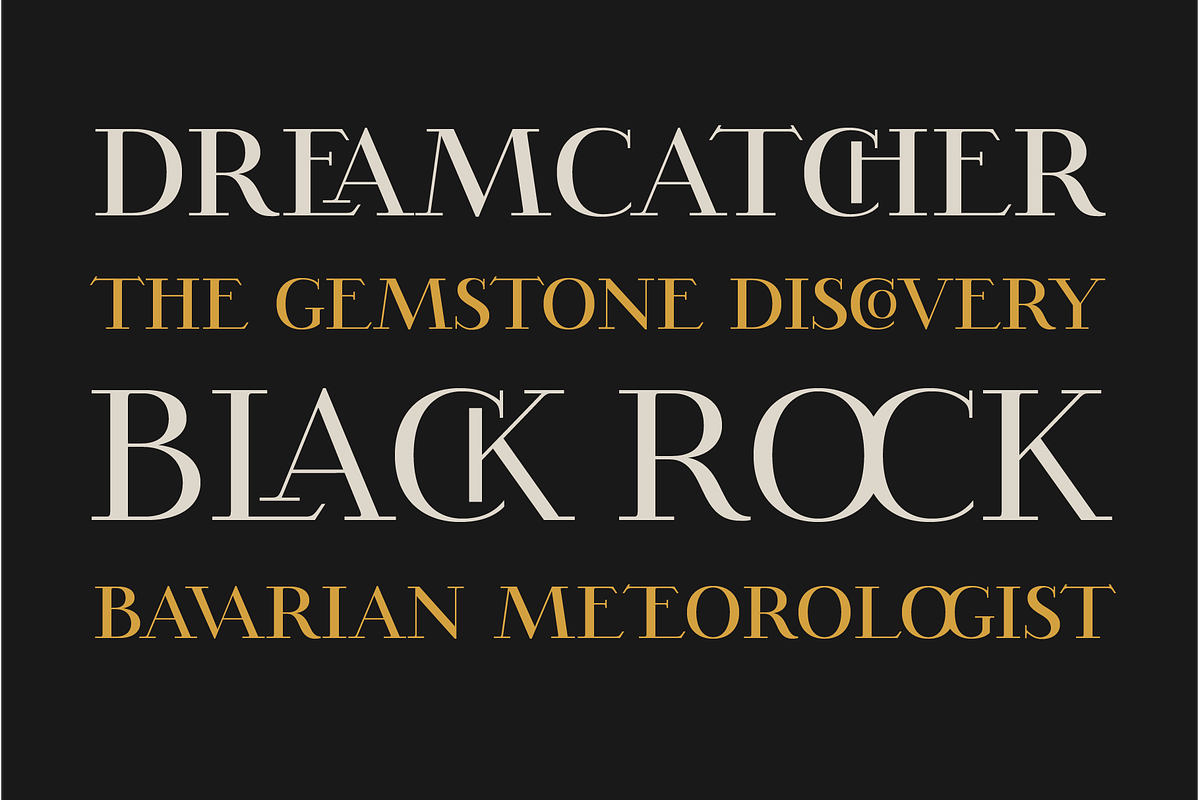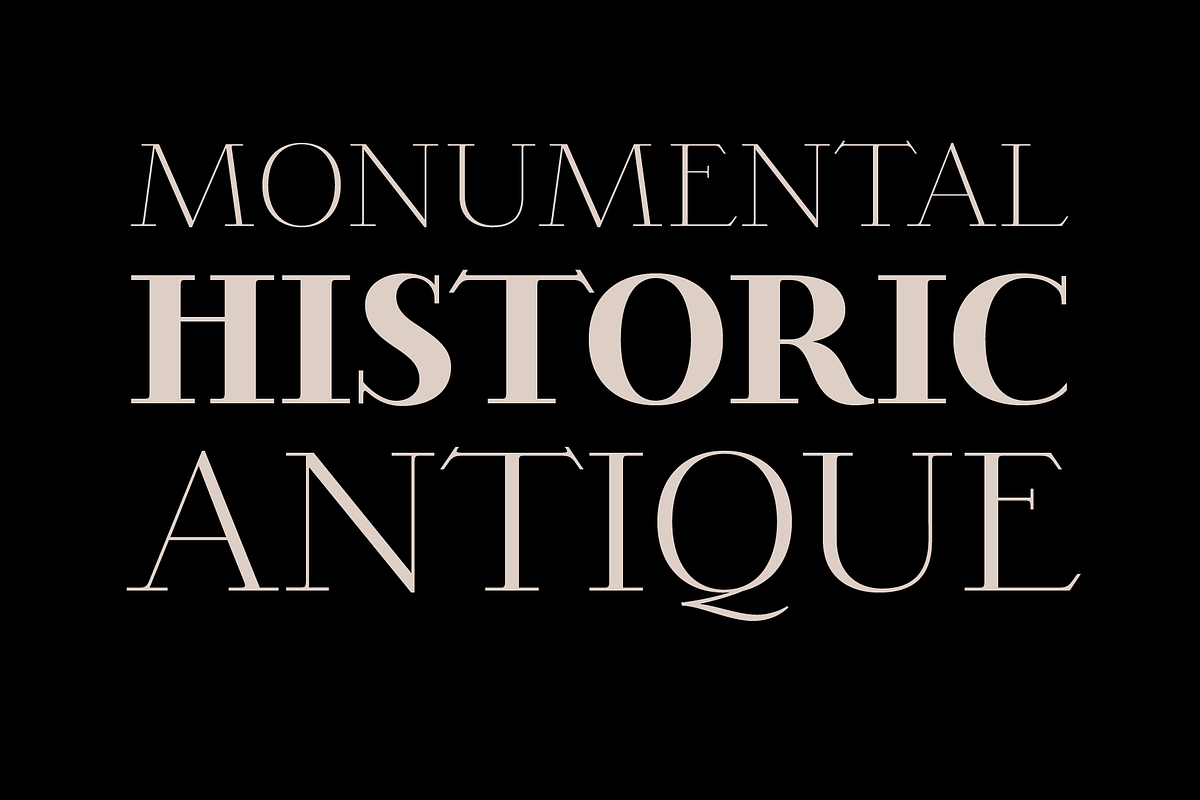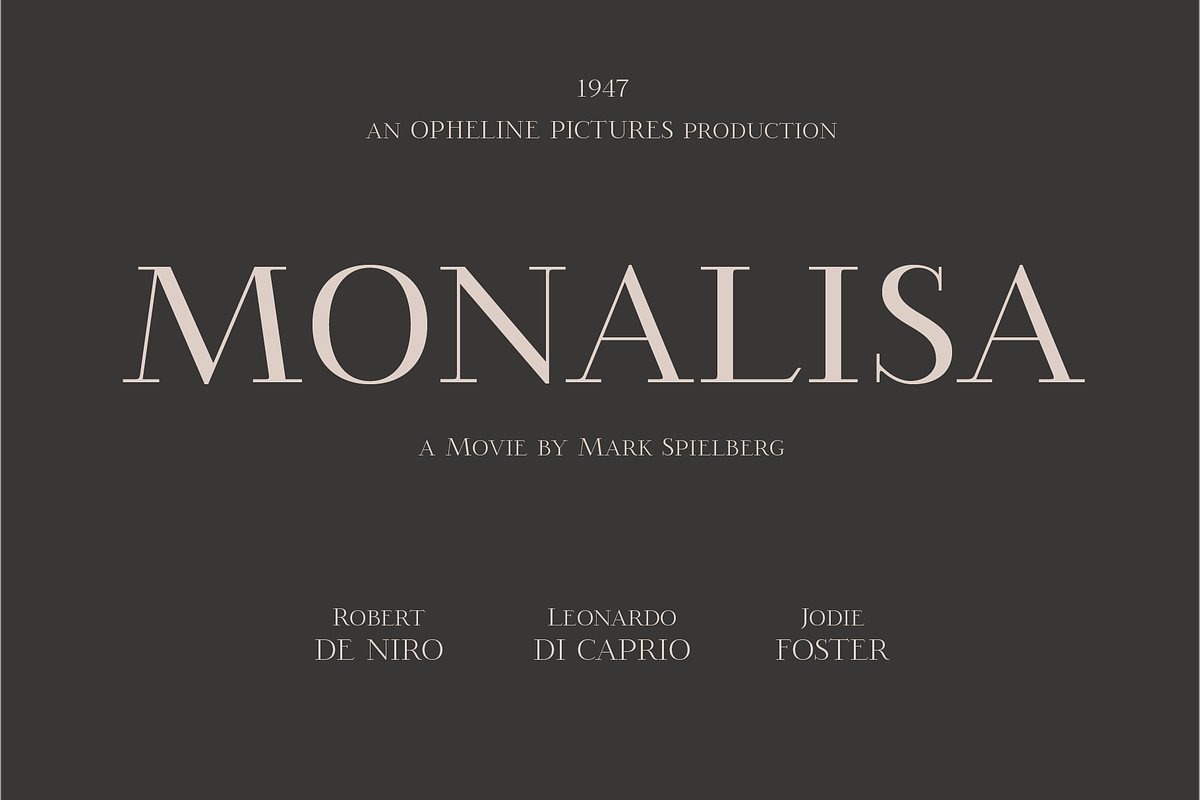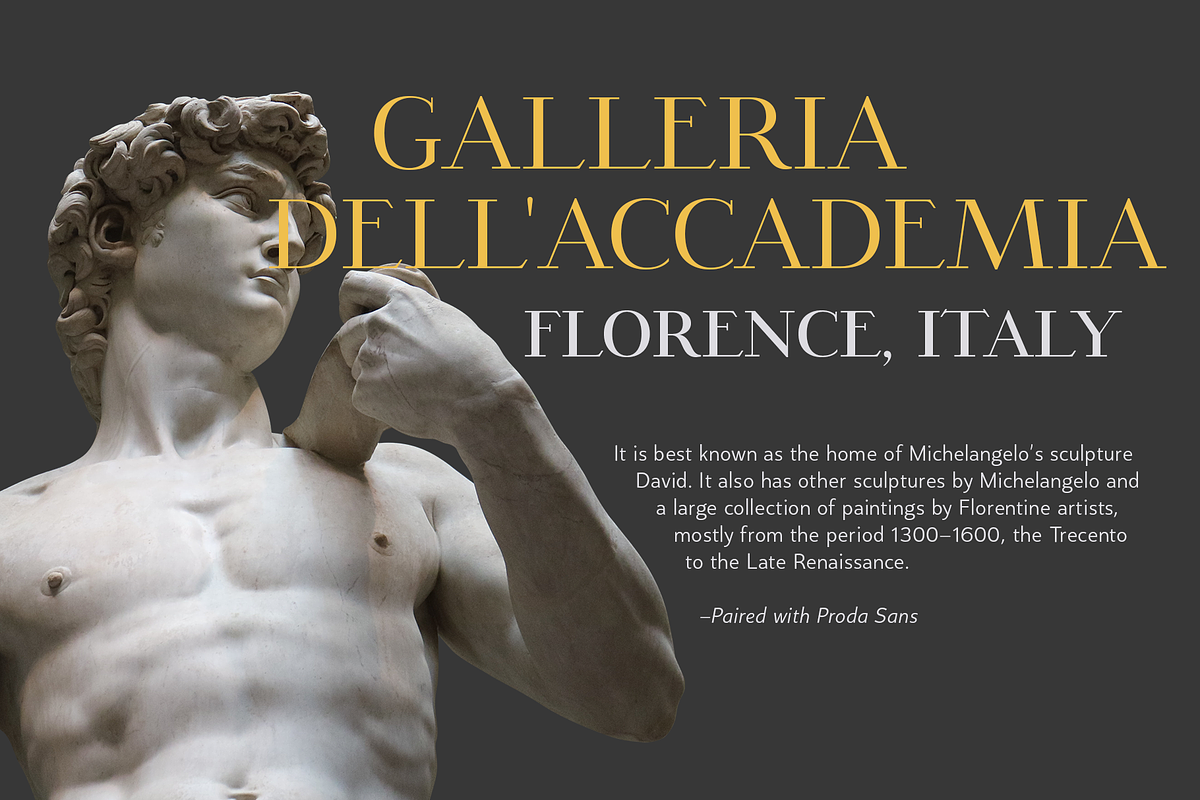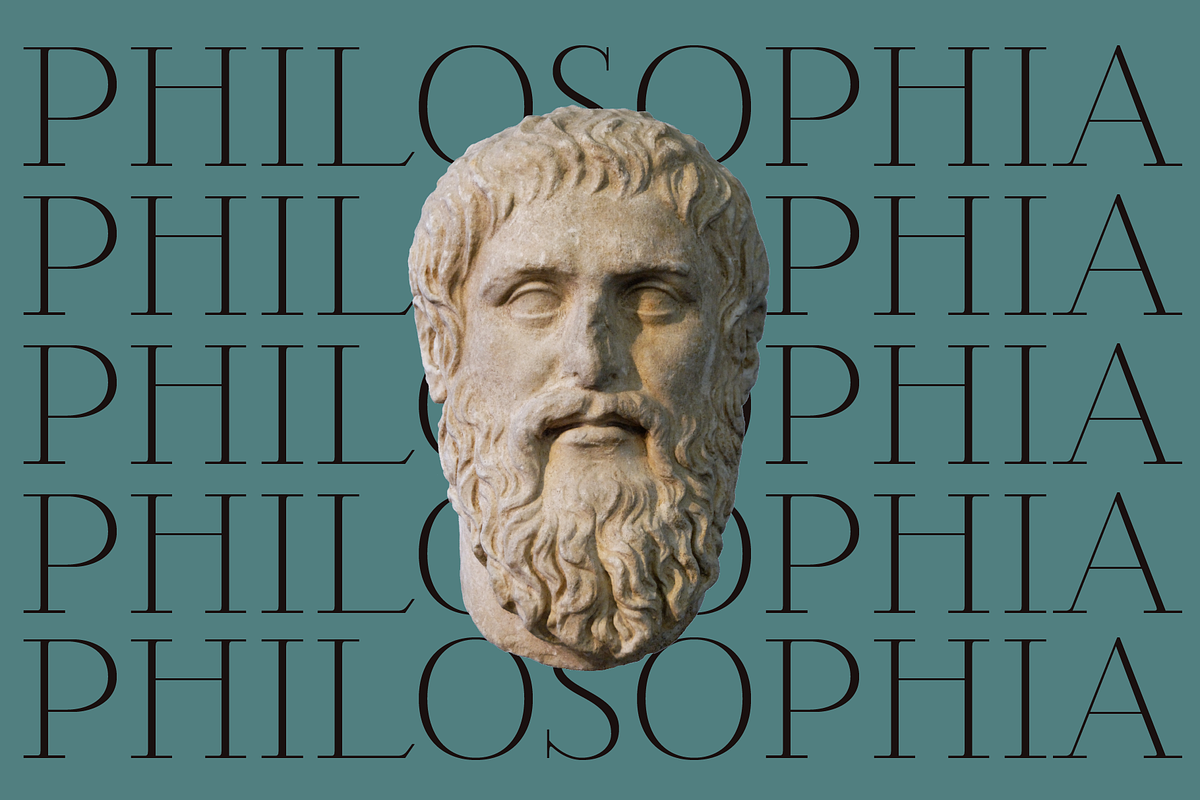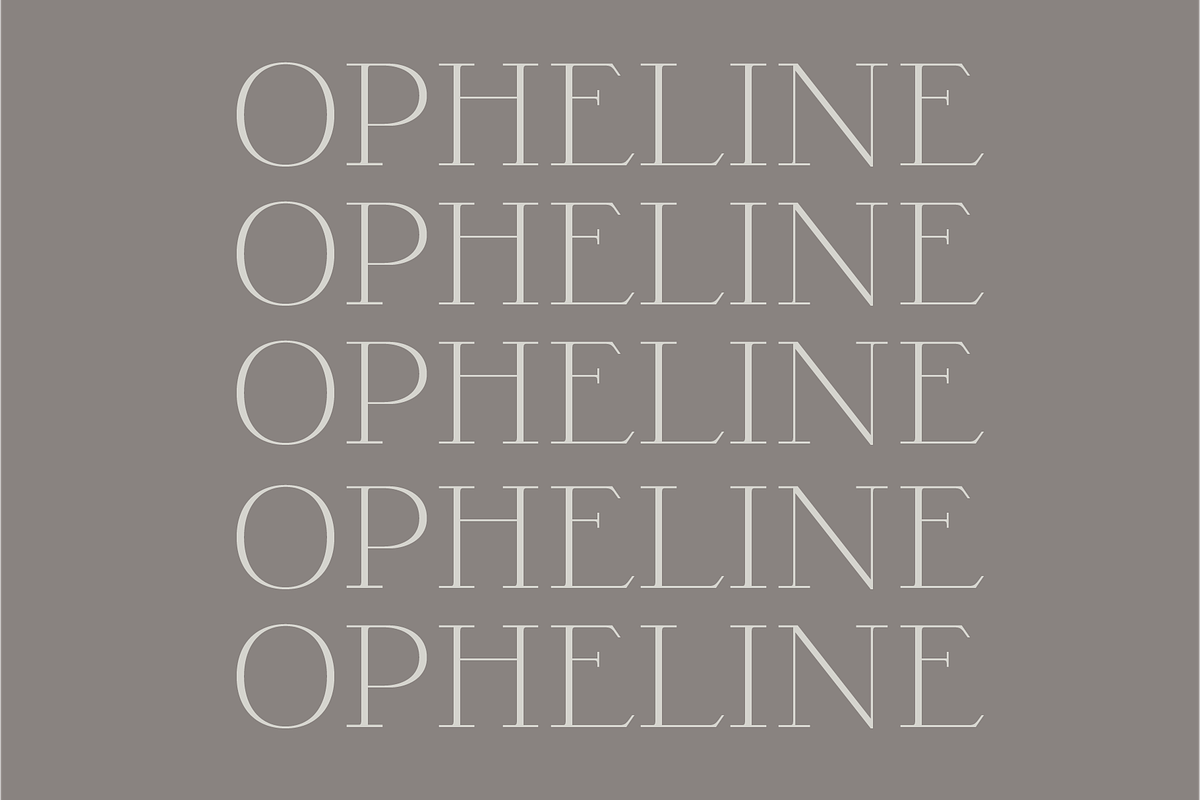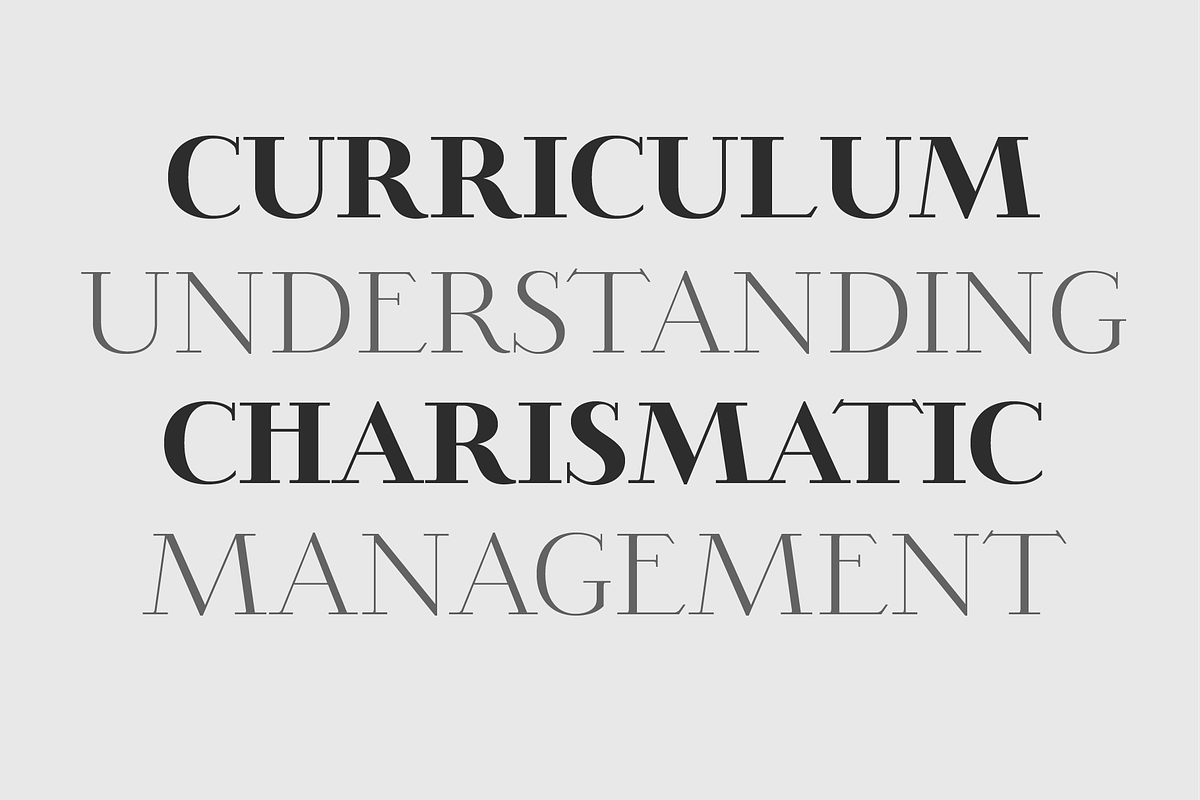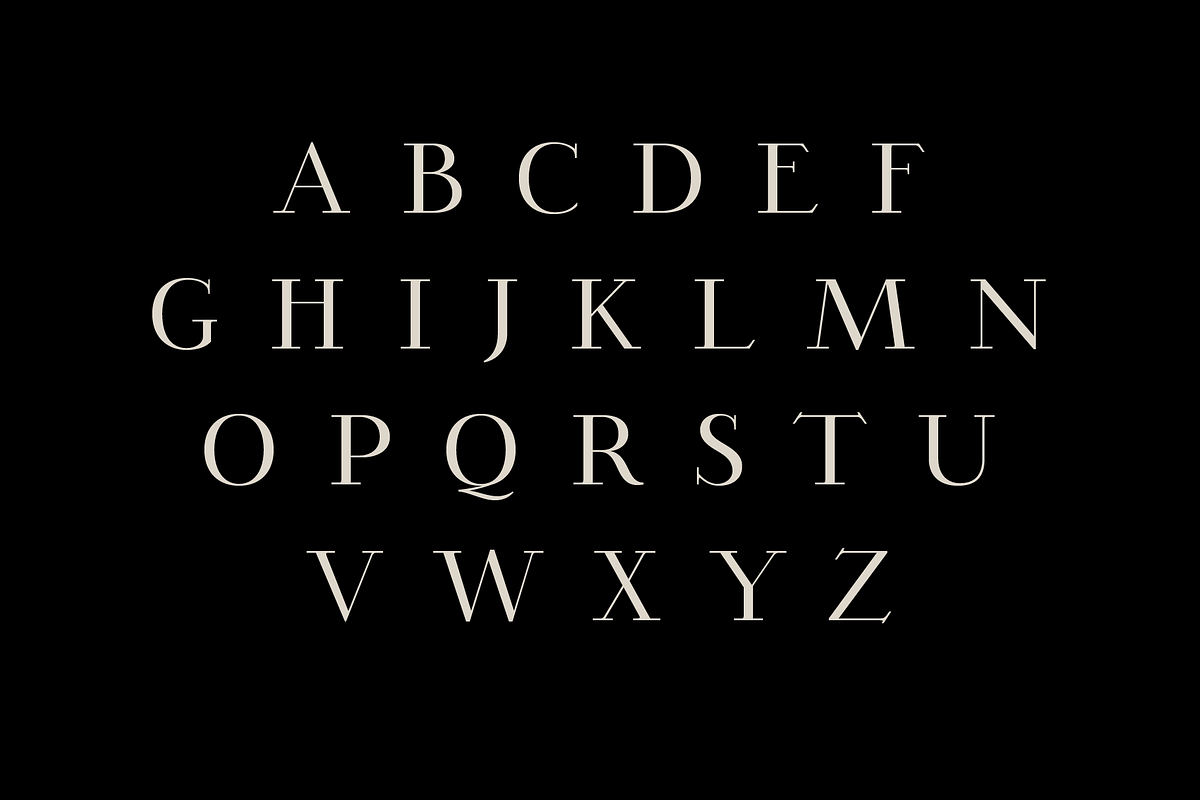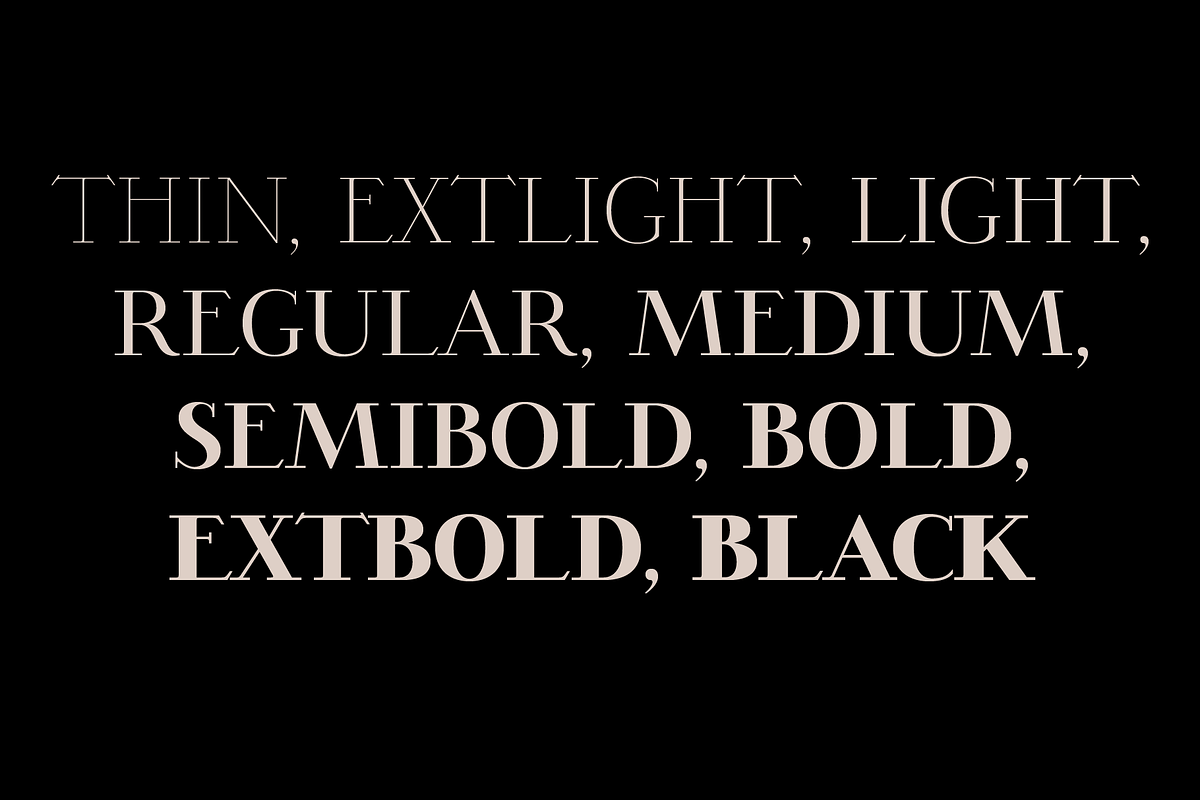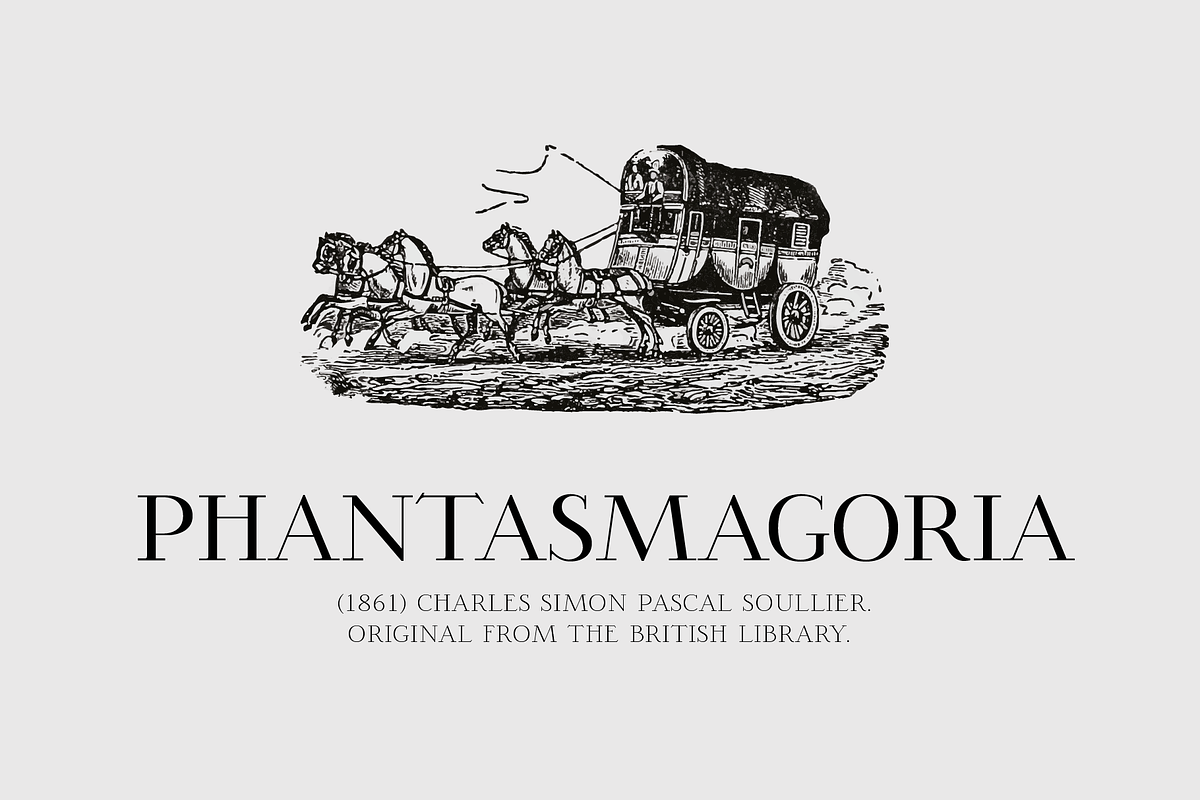
Opheline - 9 Fonts
Opheline is modern display serif family of 9 fonts. The family consists of 9 weights, ranging from thin to black. The thin version reflects elegance and soft texture, while the black version represents modern and strong appearance.
The vast range of Opheline family will help you to tackle your designs problem that need professional or classical touch; from the professional-look branding of law firm to classic-historical wine branding.
- OpenType Features: Contextual Alternates, Discretionary Ligatures, Denominators, Fractions, Lining Figures, Localized Forms, Numerators, Oldstyle Figures, Ordinals, Subscript, Superscript